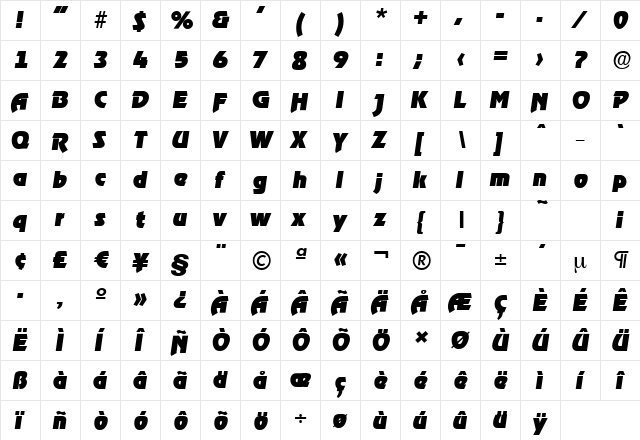
OnStageSerial-Black Italic Font Preview
OnStageSerial-Black Italic
OnStageSerial-Black Italic Font Details
Design Context for OnStageSerial-Black Typeface
OnStageSerial-Black takes a measured approach to typography — its balanced proportions and neutral character make it a reliable workhorse for both digital and print work. The slanted form adds forward momentum and visual energy.
Pro Tip: Try OnStageSerial-Black for annotation and caption copy alongside an upright companion — the contrast in angle creates a dynamic but ordered typographic system.